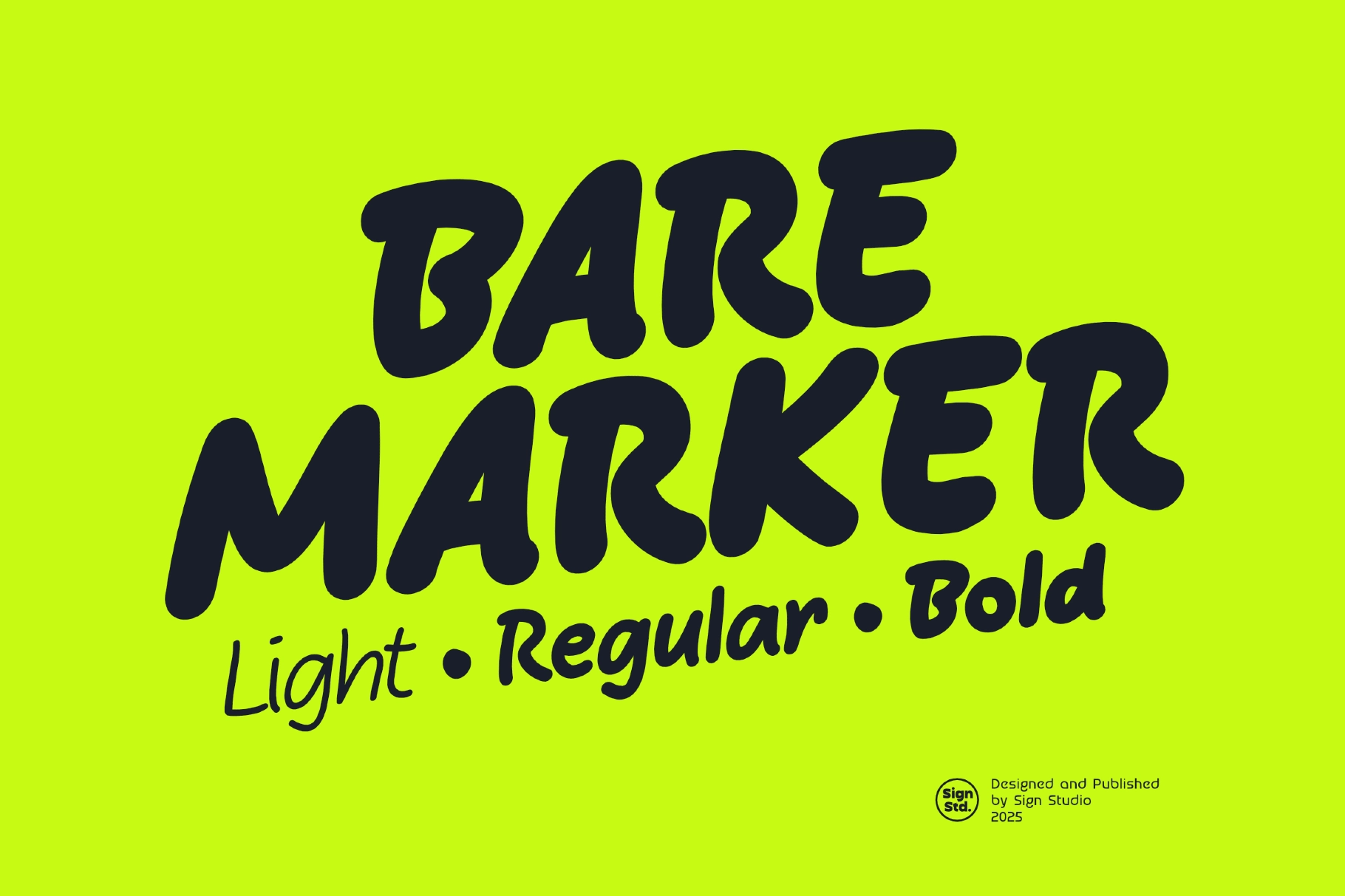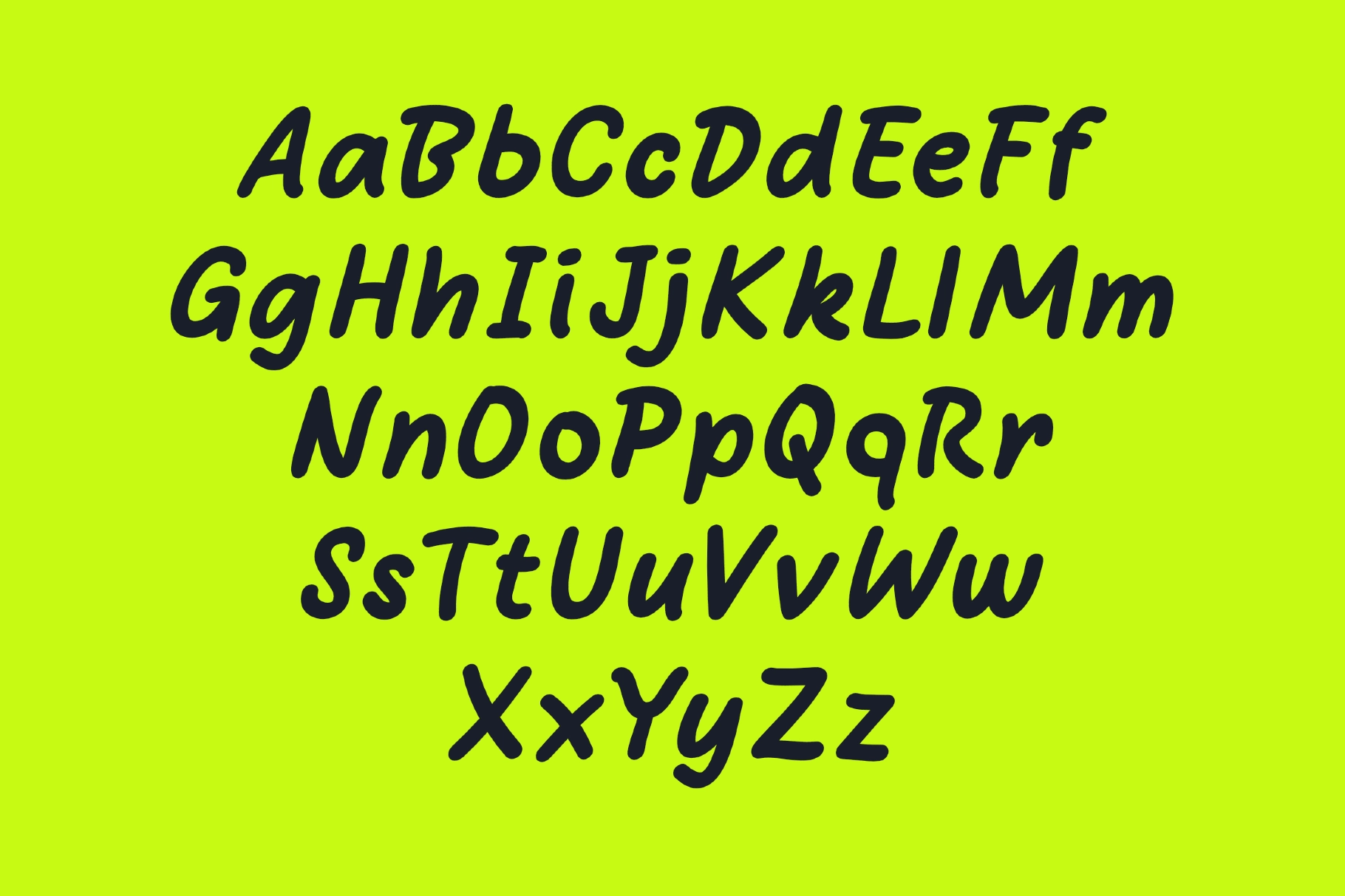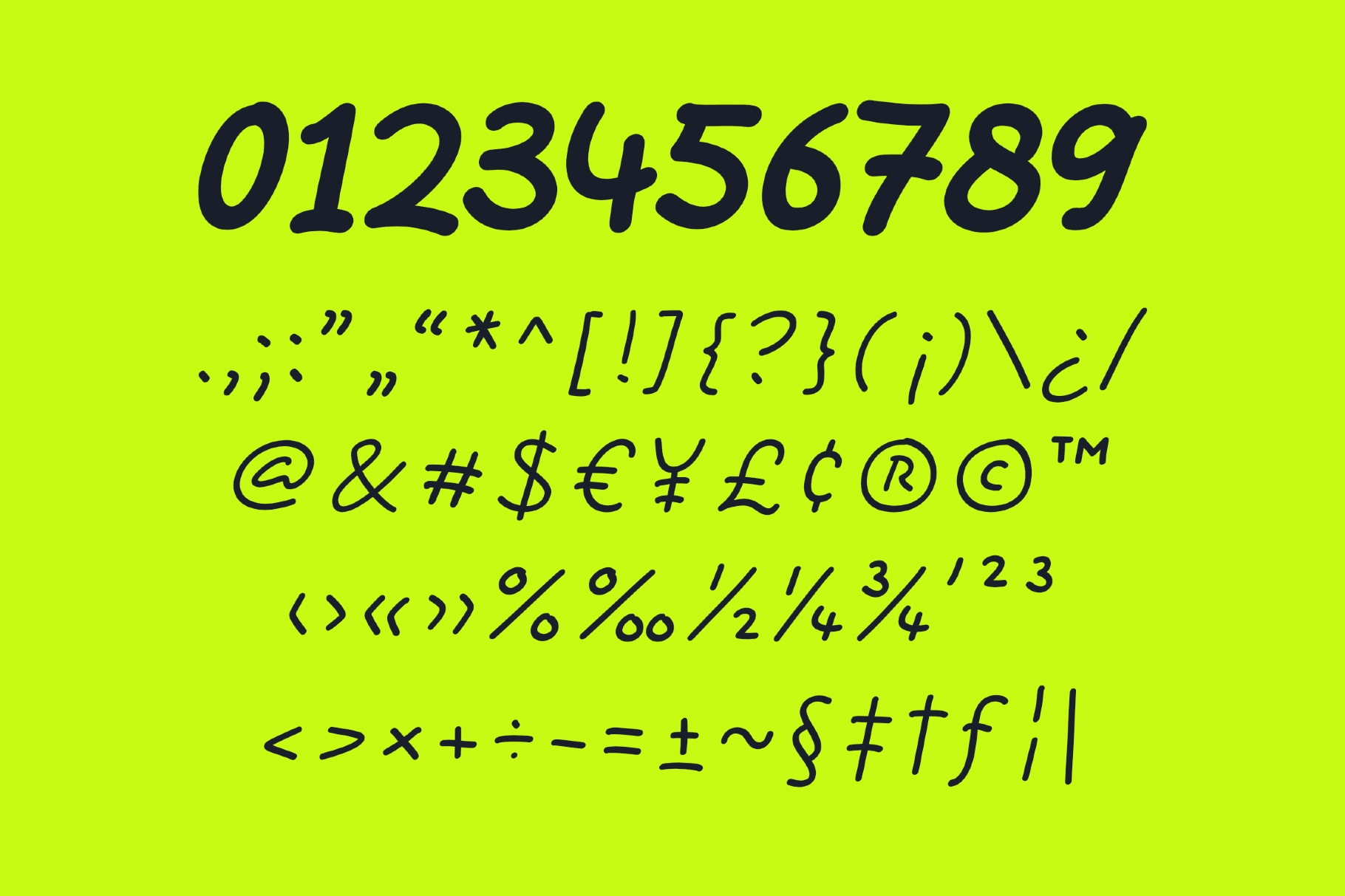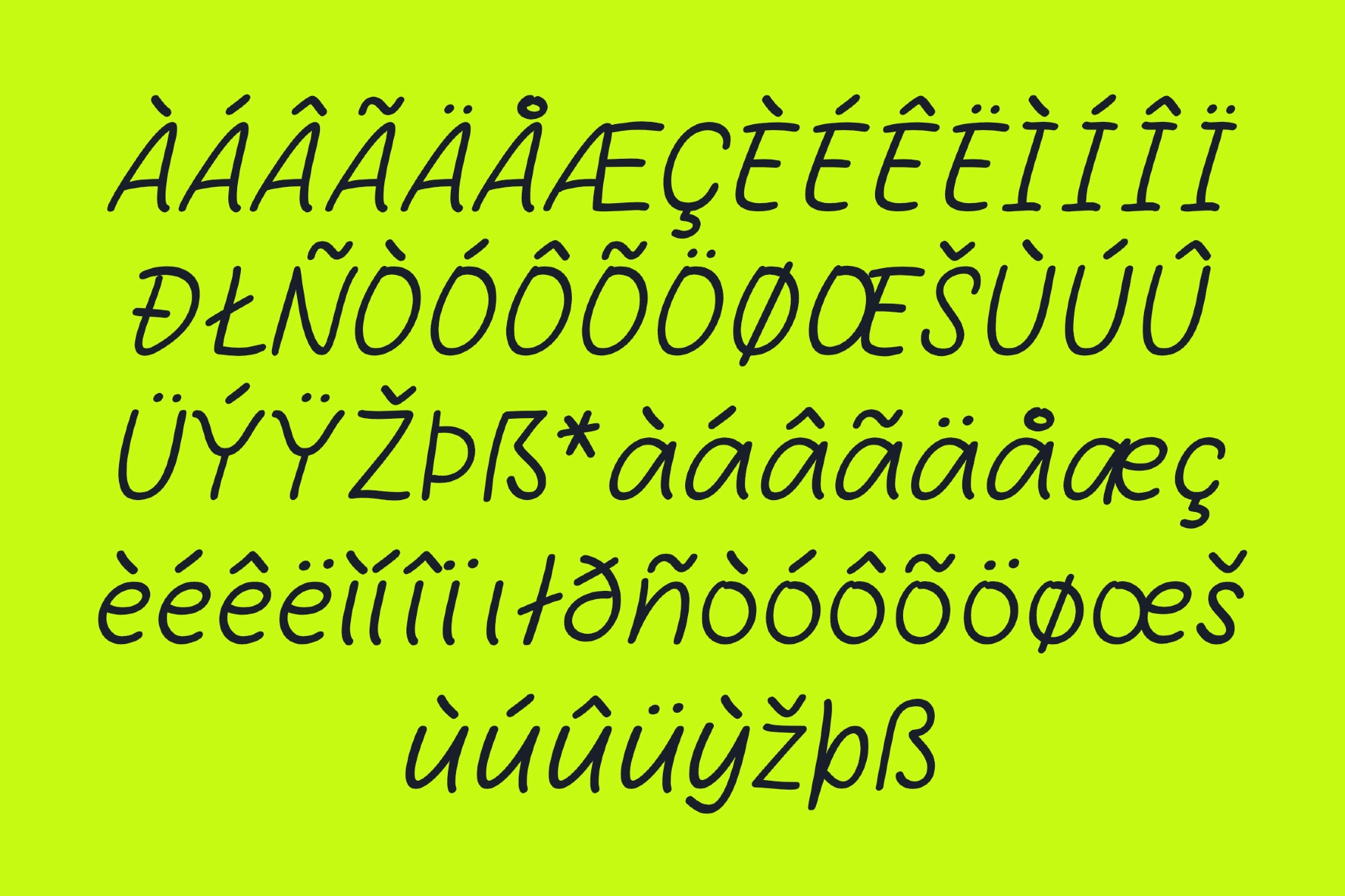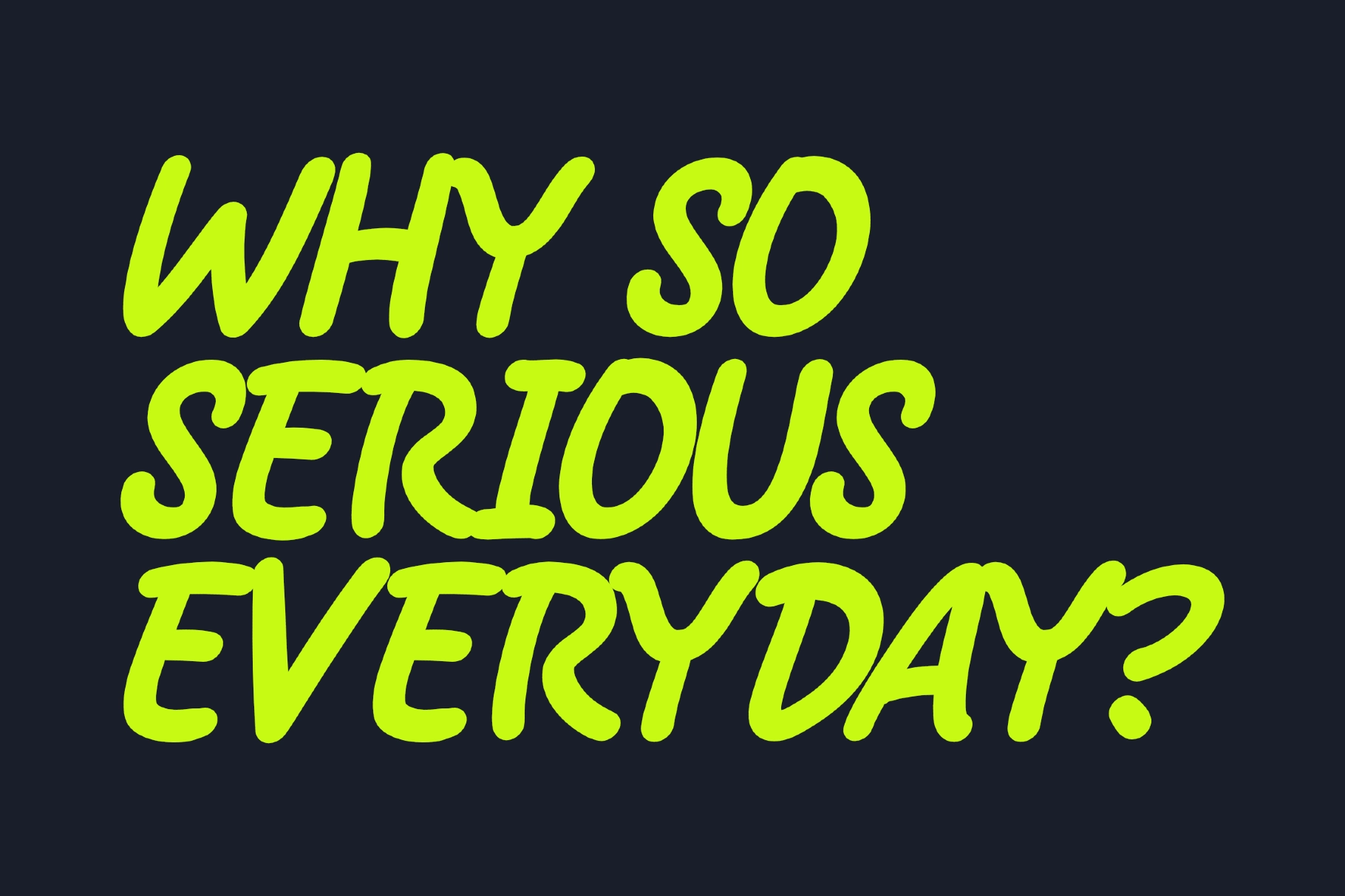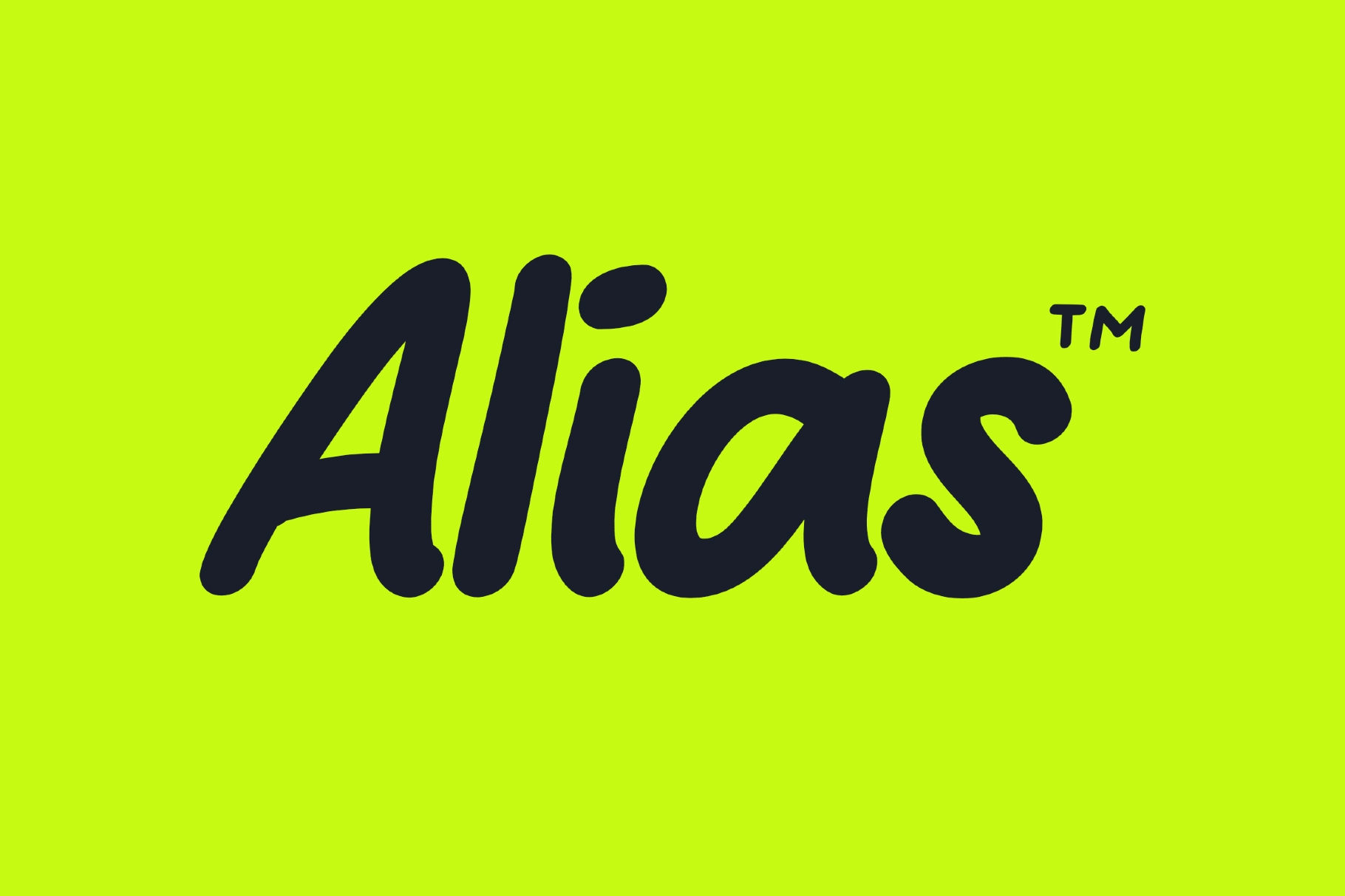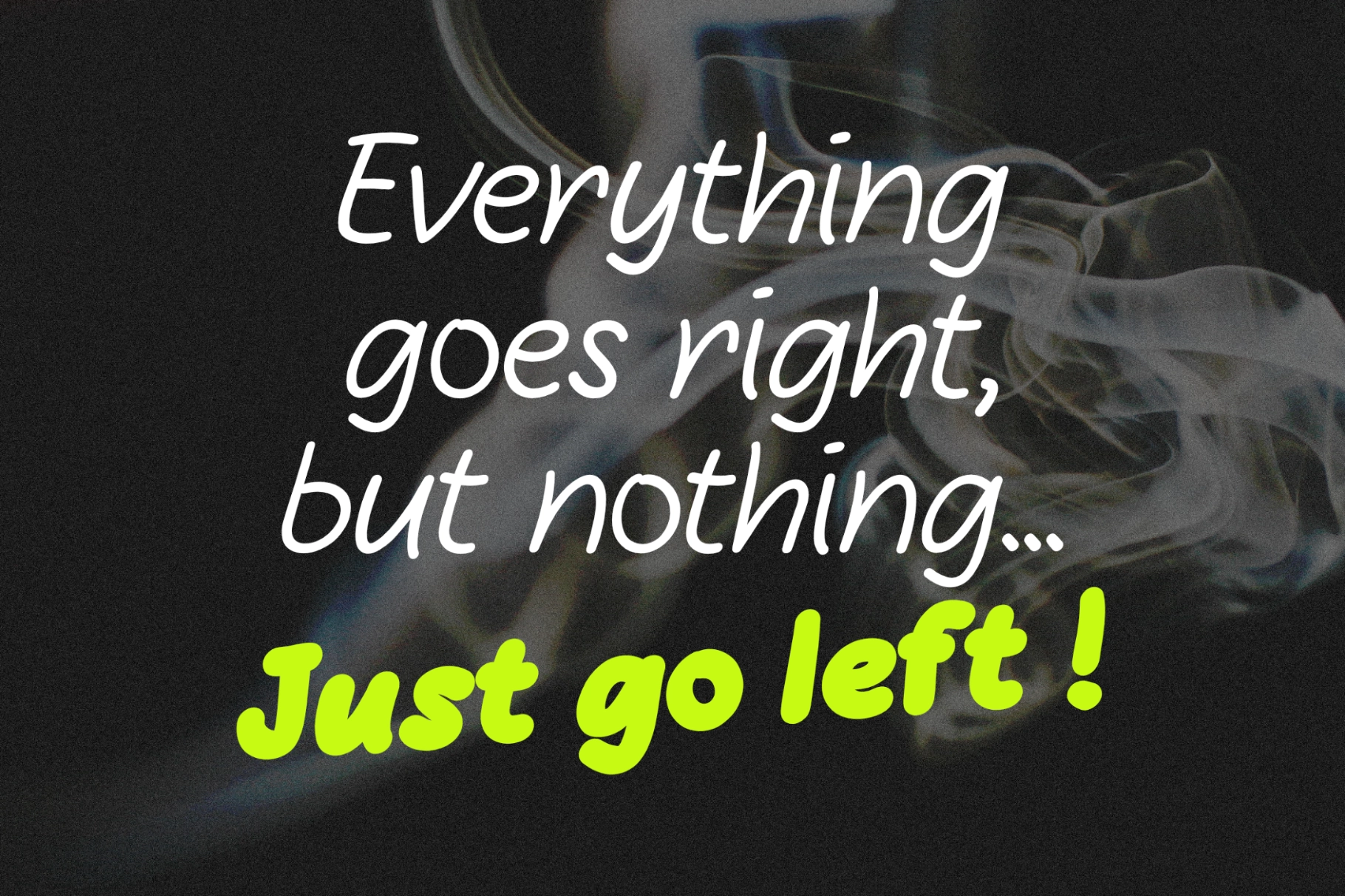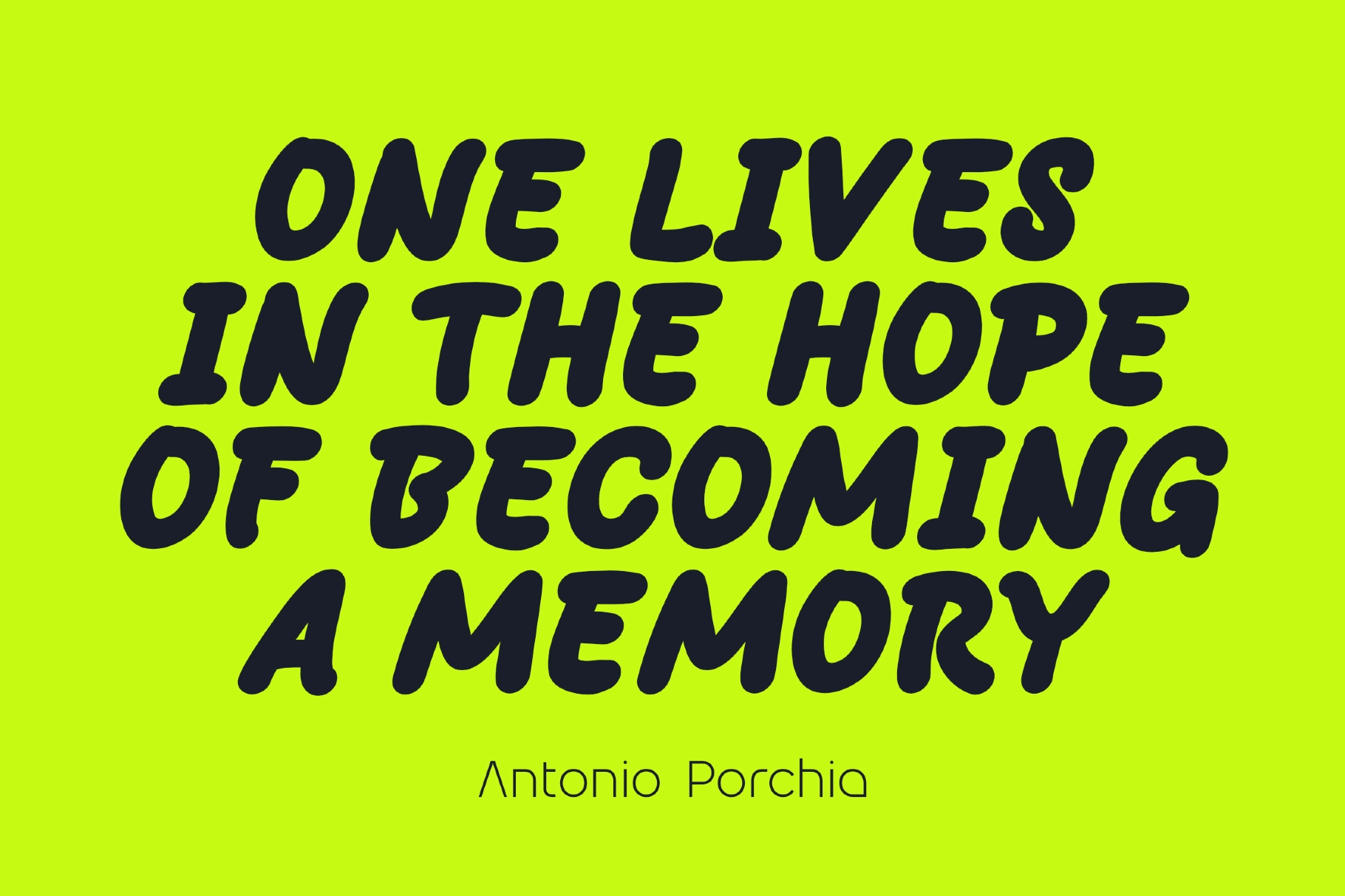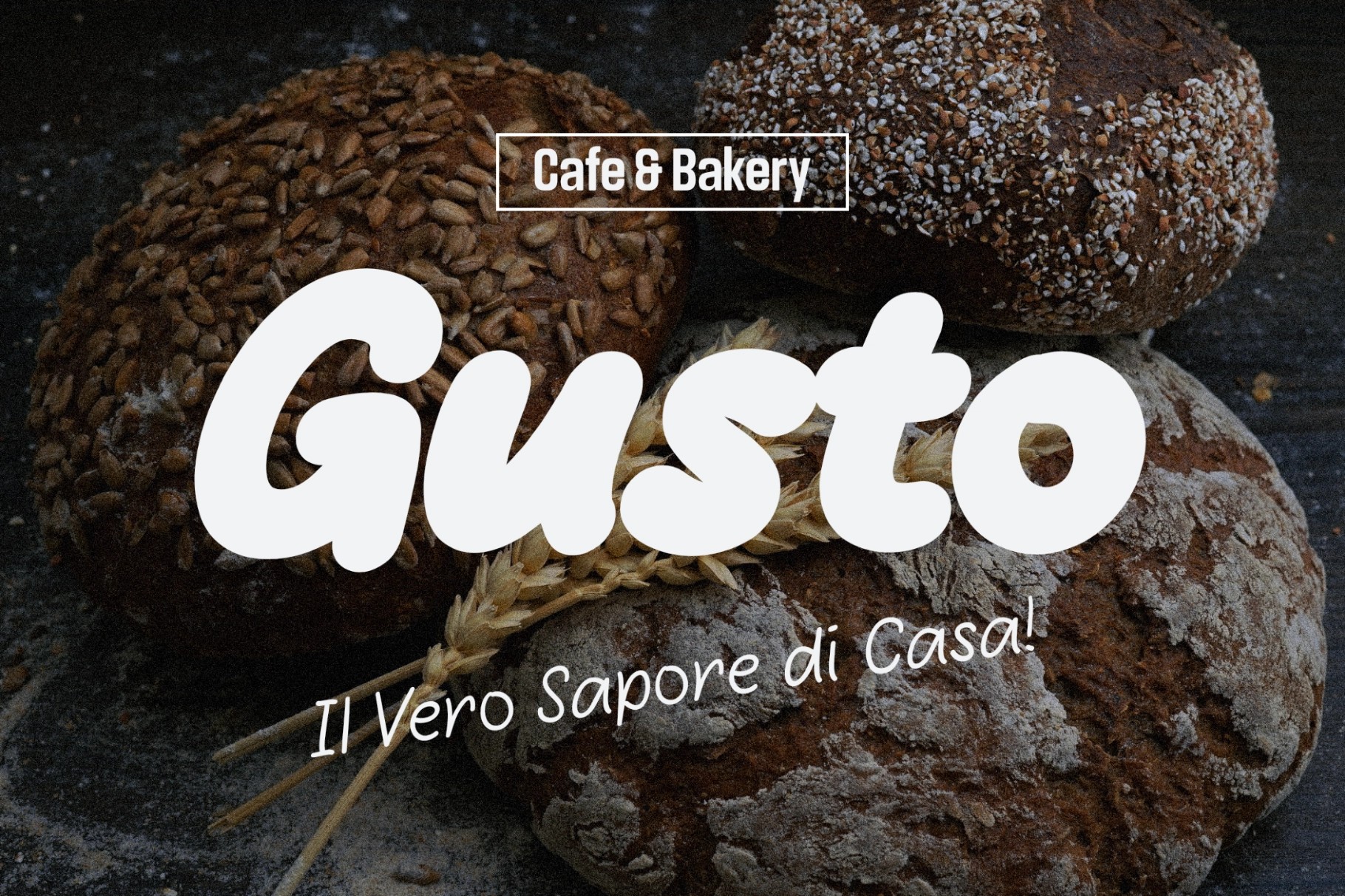
Bare Marker - Handwritten Marker Font
This handwritten marker font has fluid strokes, soft rounded forms, and a casual rhythm that looks quick, personal, and expressive. Its lines are clear enough for full phrases, while the imperfect edges give the lettering a playful human character.
Bare Marker works well for whiteboard graphics, classroom posters, motivational quotes, casual branding, social media captions, workshop slides, coaching materials, YouTube thumbnails, stickers, packaging notes, merch prints, café signs, and app onboarding screens. The Light, Regular, and Bold weights make it easy to shift from loose handwritten notes to punchy display text.
• 3 weights: Light, Regular, Bold
• Numerals & punctuation
• Handwritten marker style